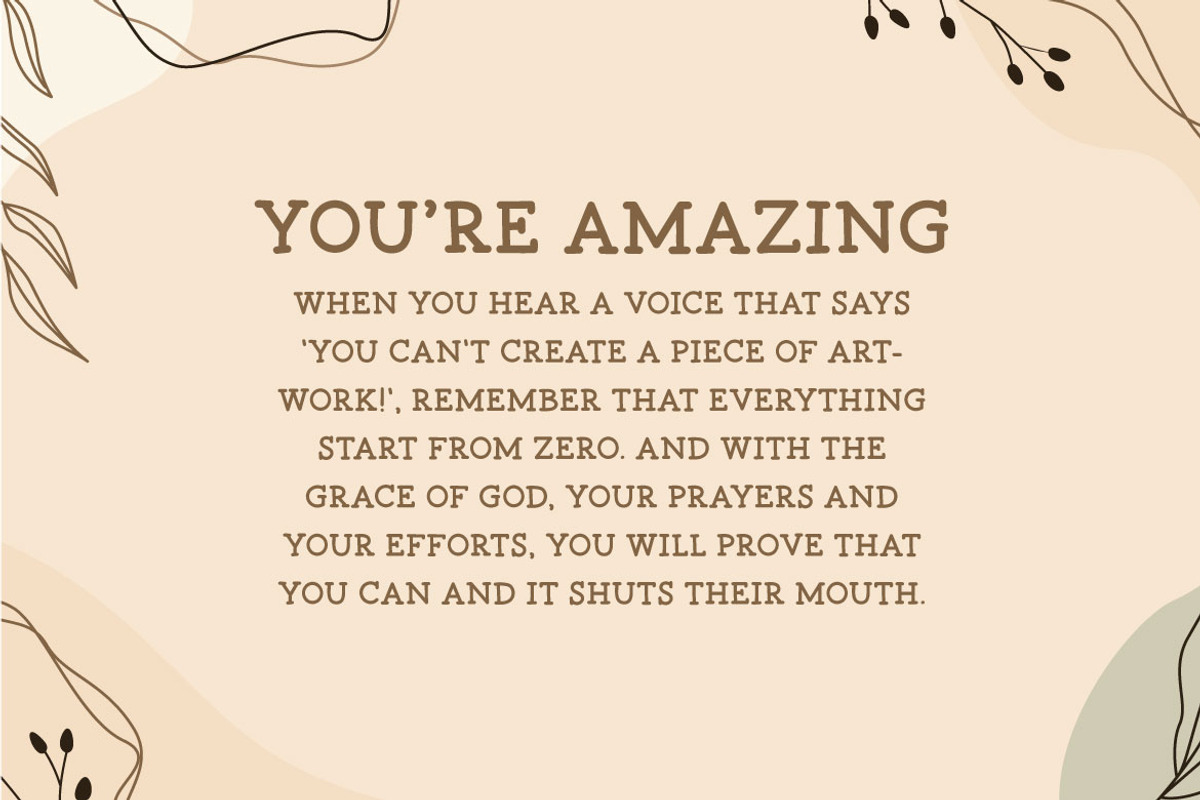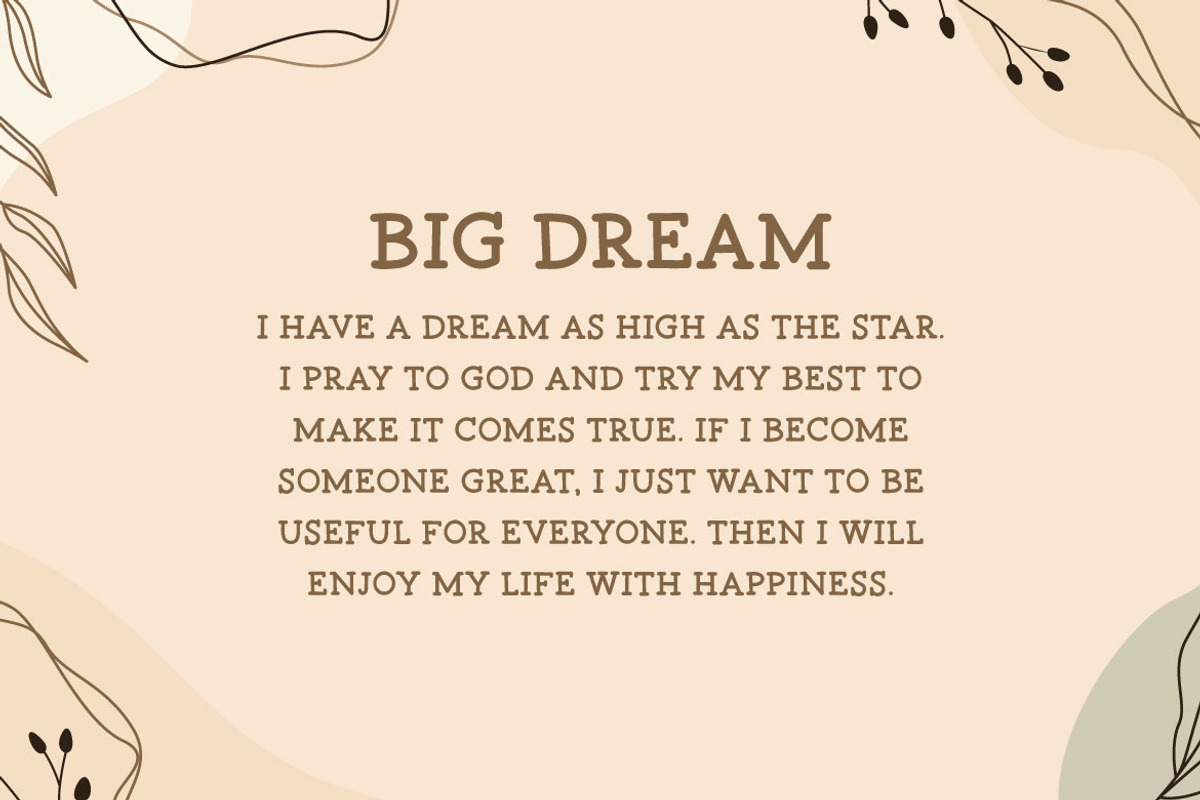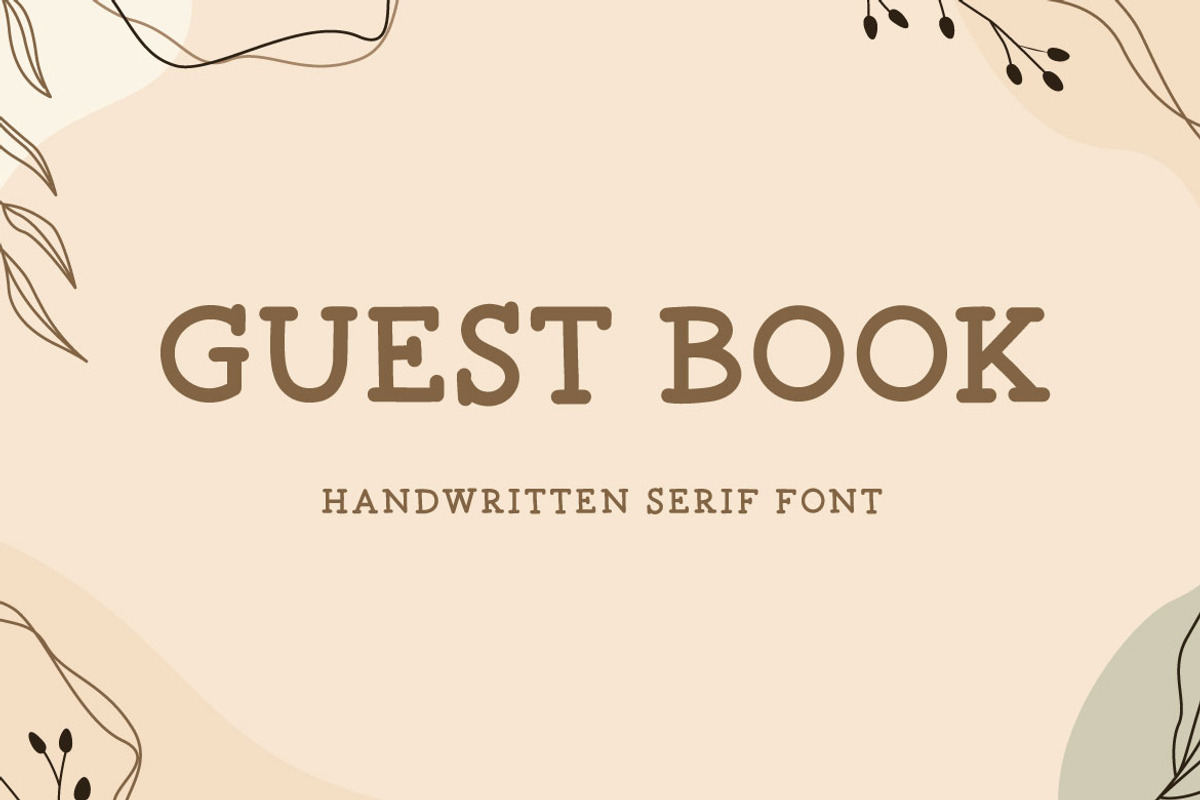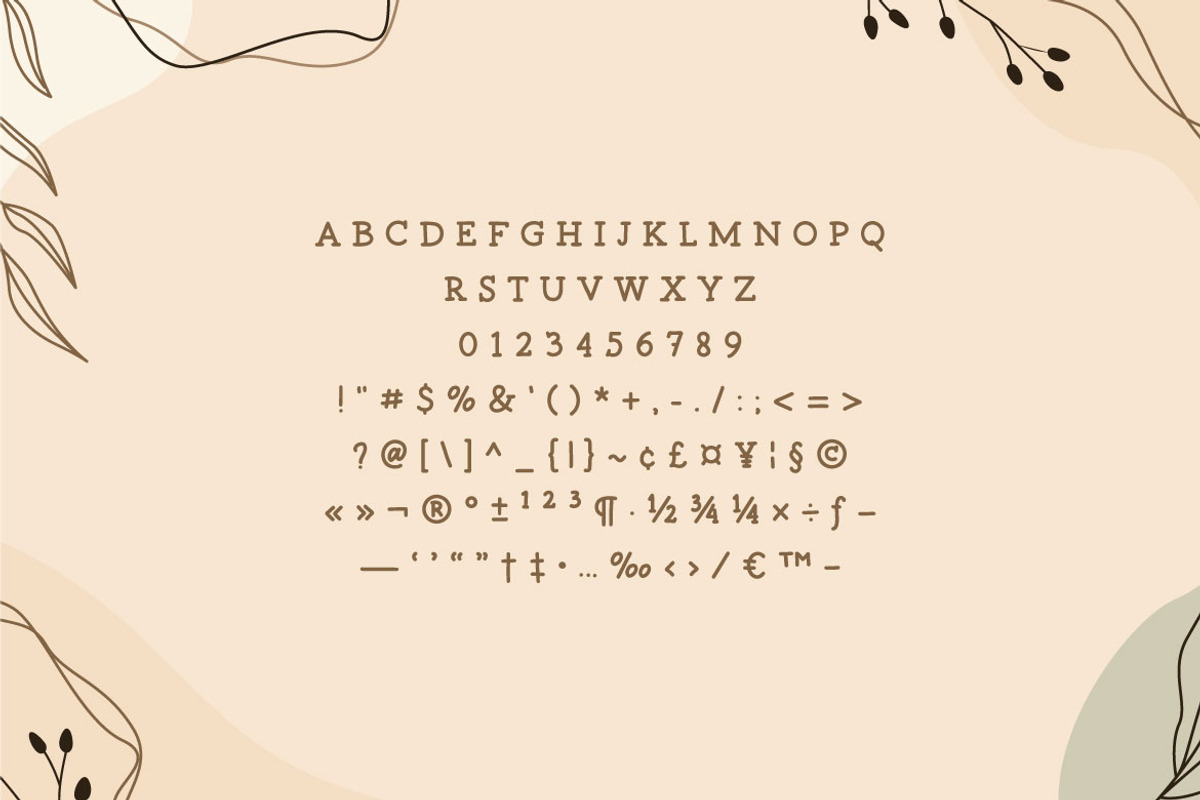
Guest Book - Clean Modern Font
Hello! Guest Book is a clean modern font. Guest Book can be used in any works such as comic book, poster, school, flyer, book title, advertisement, social media content, logo and many more.